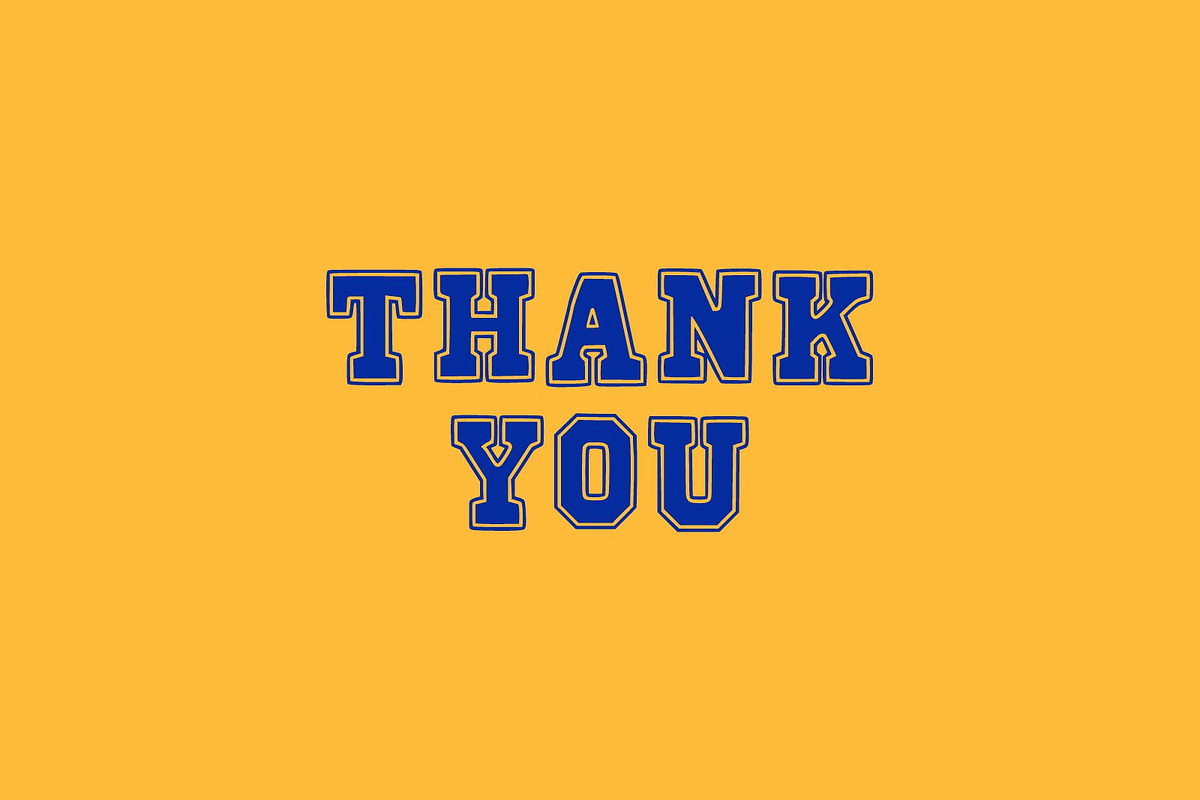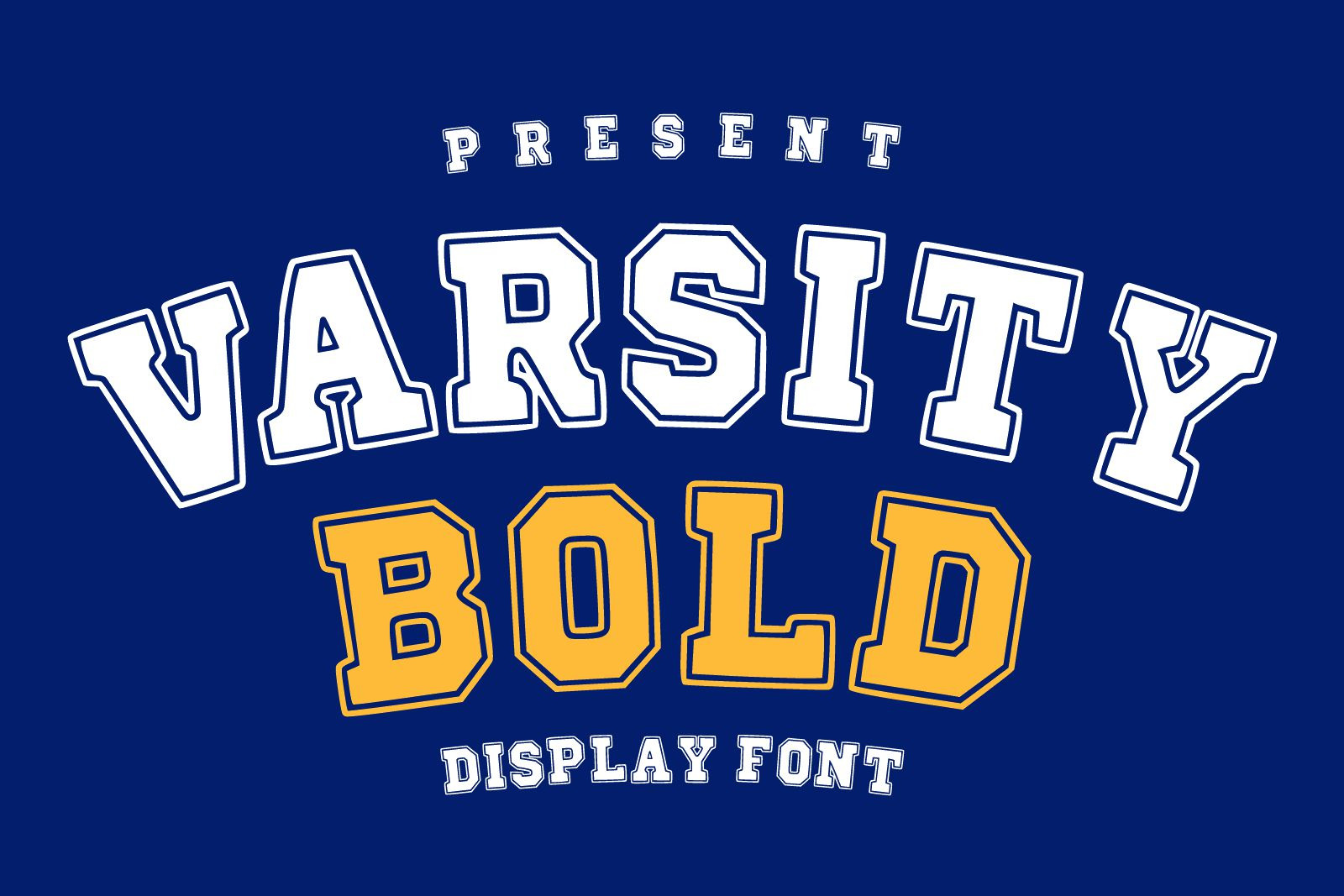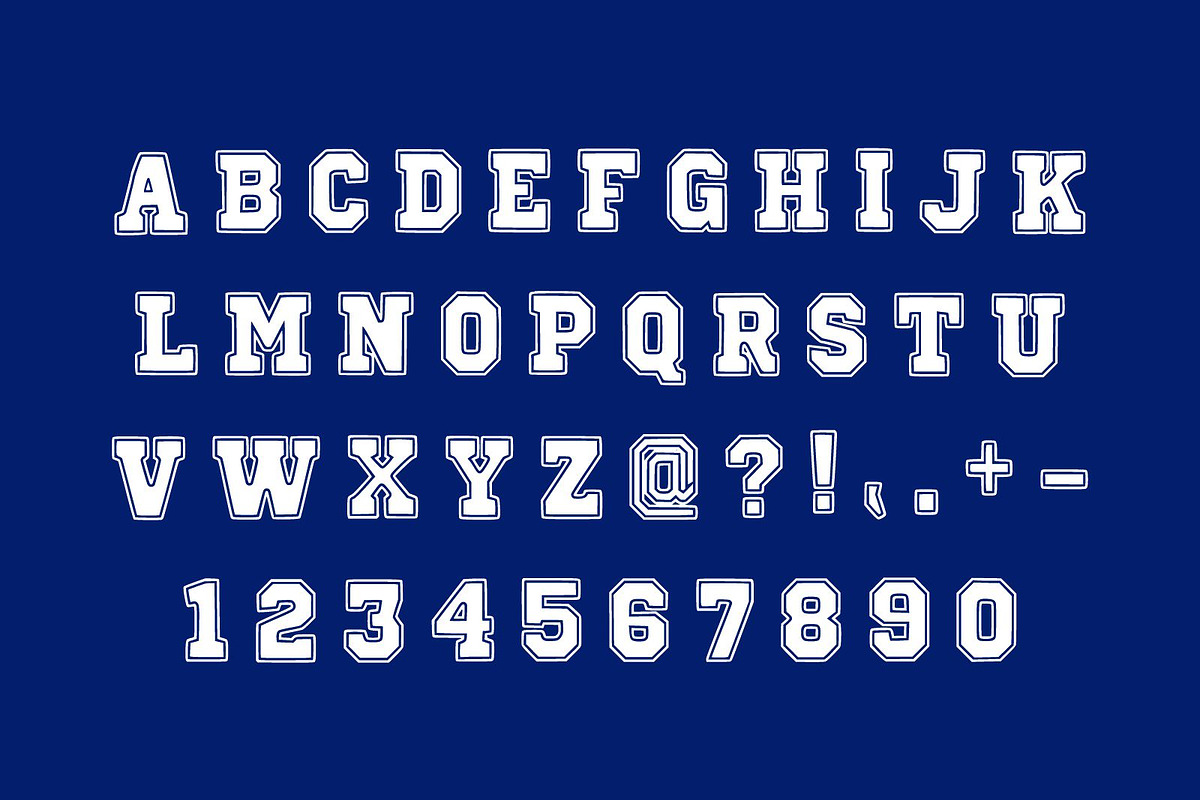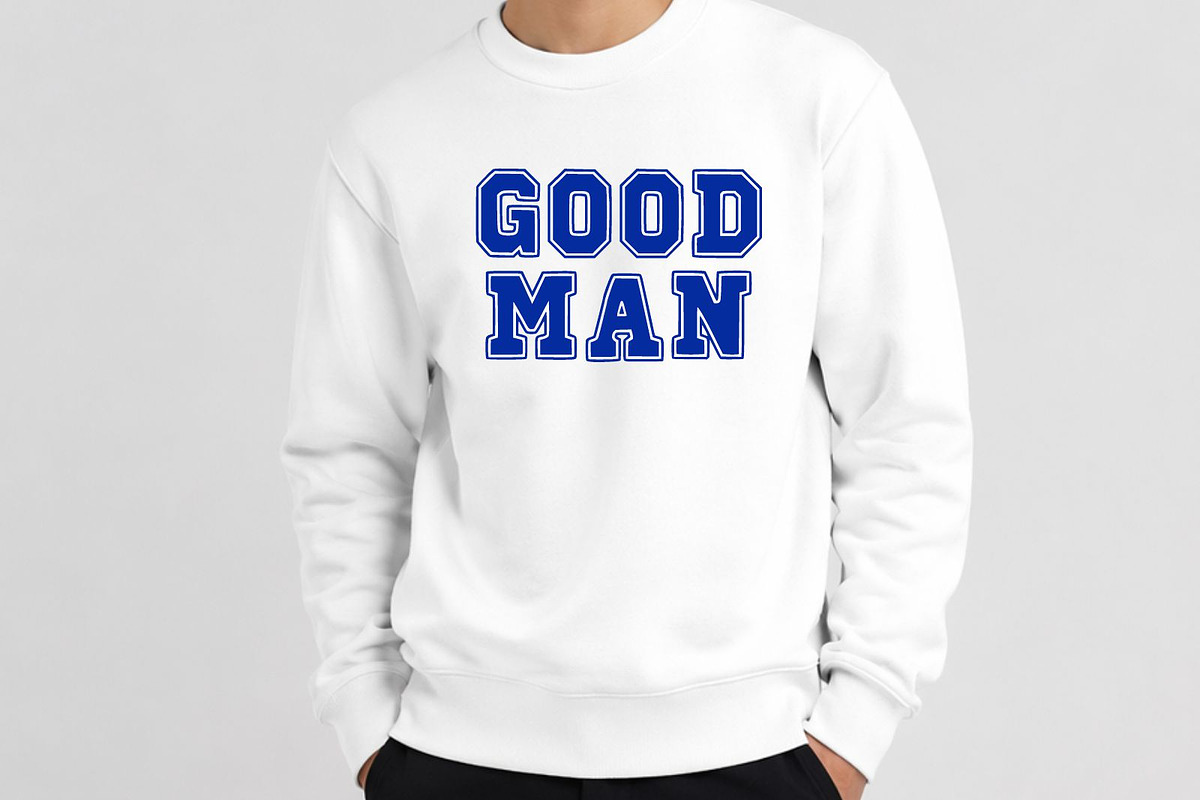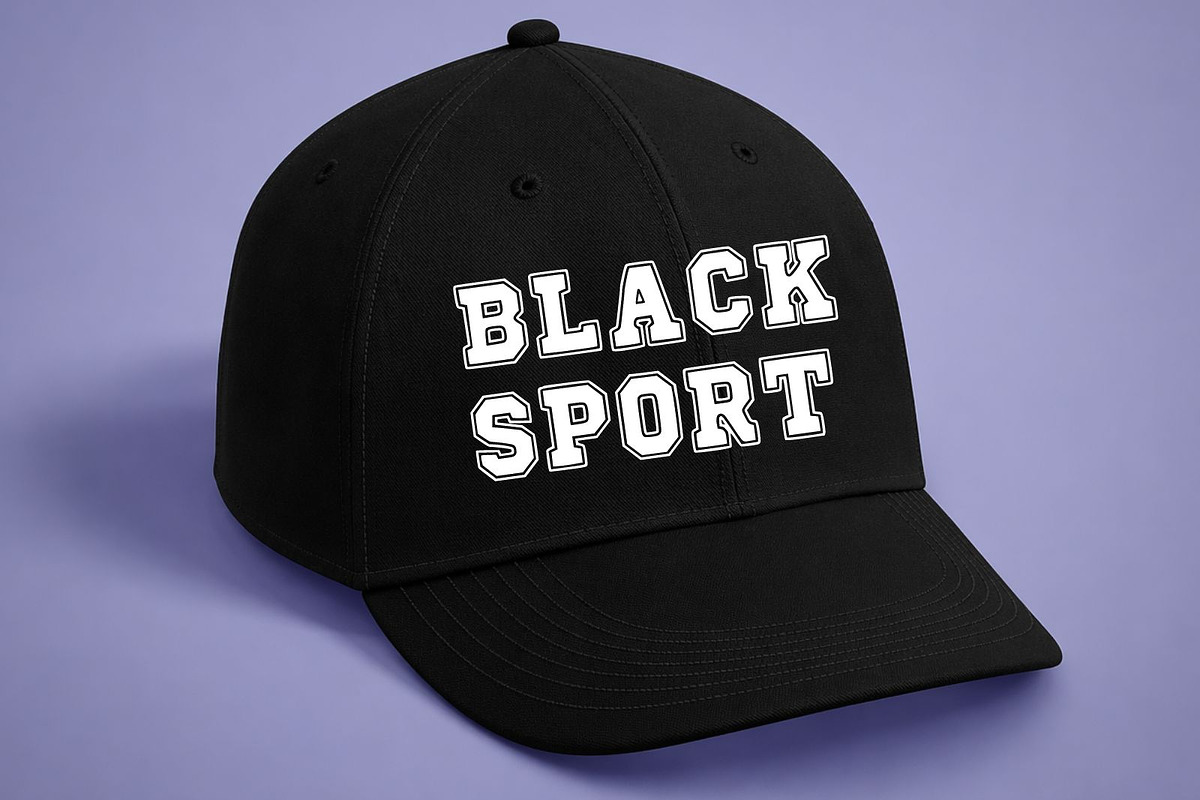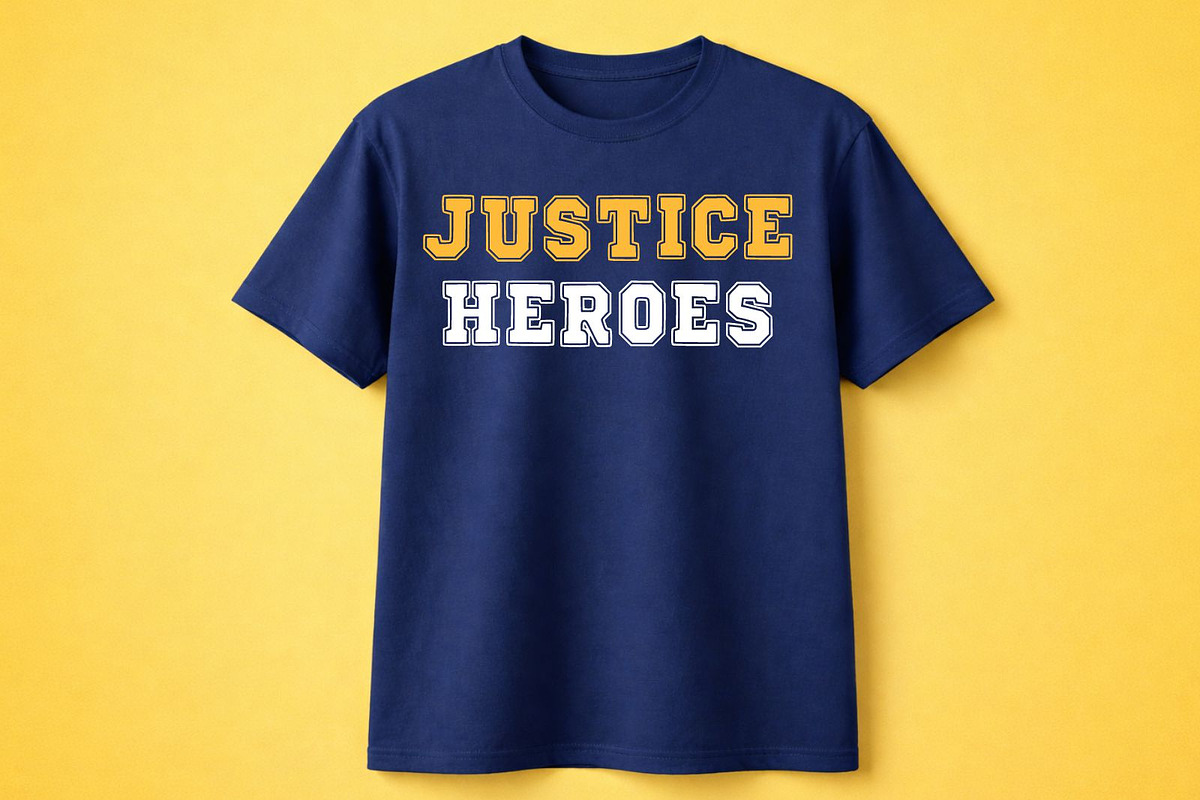
Varsity Bold – College Display Font
Varsity Bold is a strong and sporty display font inspired by classic college and varsity lettering styles. Featuring bold characters with athletic outlines, this font is perfect for sports branding, team logos, jerseys, posters, merchandise, gaming titles, school events, and retro collegiate designs. Its powerful and energetic look makes every project stand out with a professional varsity feel.